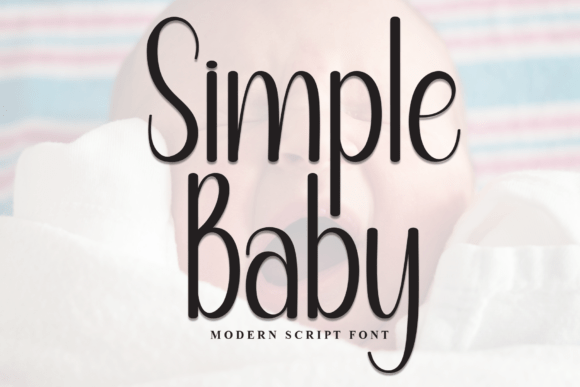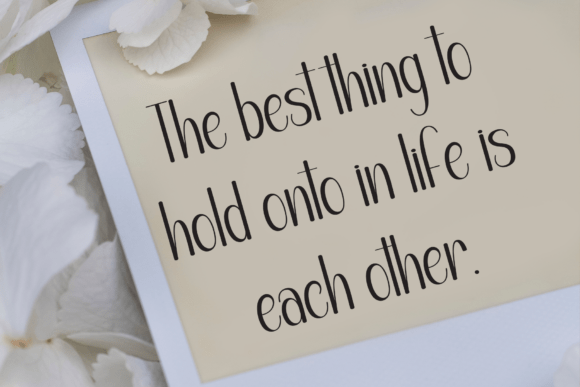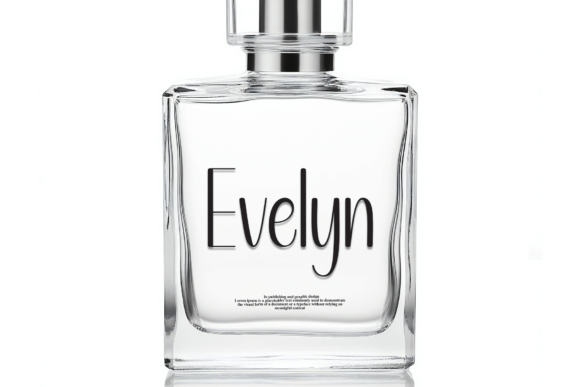
Simple Baby Font: A Cute Modern Script for Cricut & DIY
About the Simple Baby Font
Welcome to the world of Simple Baby Font, a typeface that will inspire your next great project. This handwritten display font brings charm and character to every letter. With its playful strokes and casual flow, it captures the essence of authentic handwriting—perfect for quotes, greeting cards, branding, and anything that needs a personal, heartfelt touch. Whether you’re crafting for kids or designing a modern logo, this font adds warmth and whimsy to your work.
Simple Baby Font Usage Examples
Simple Baby Font Example